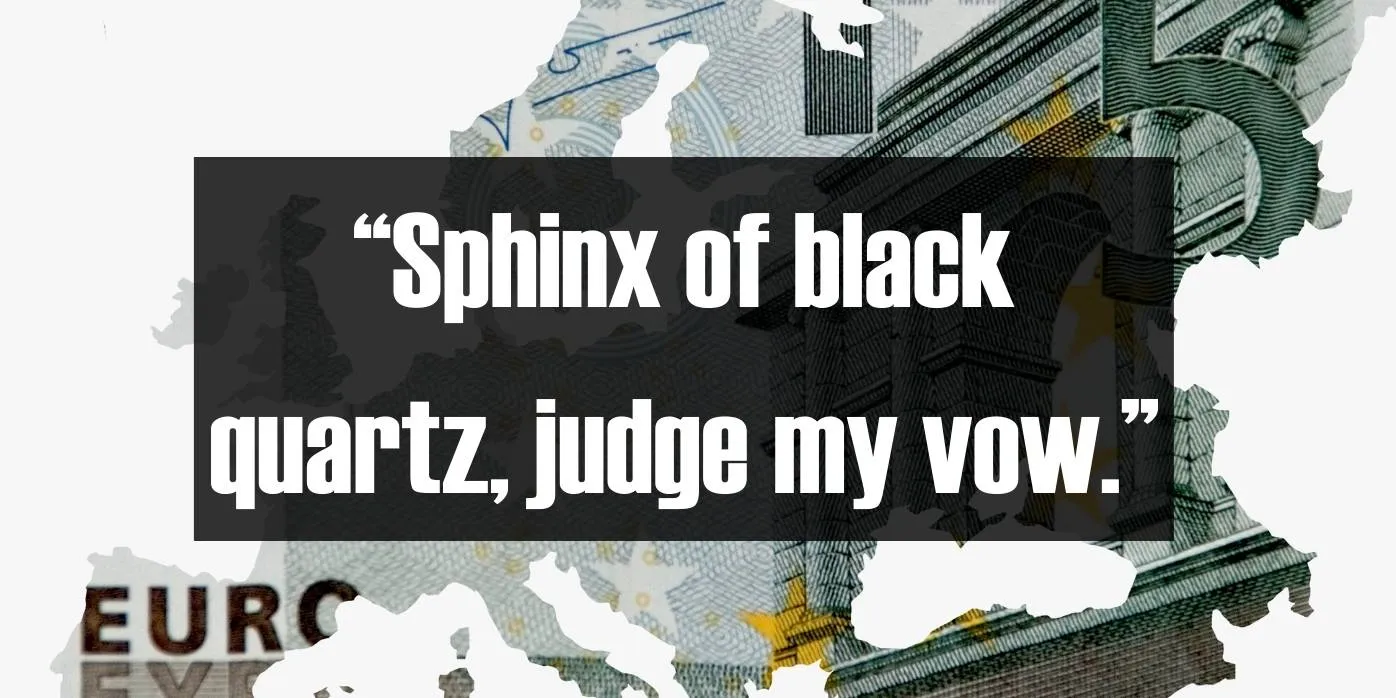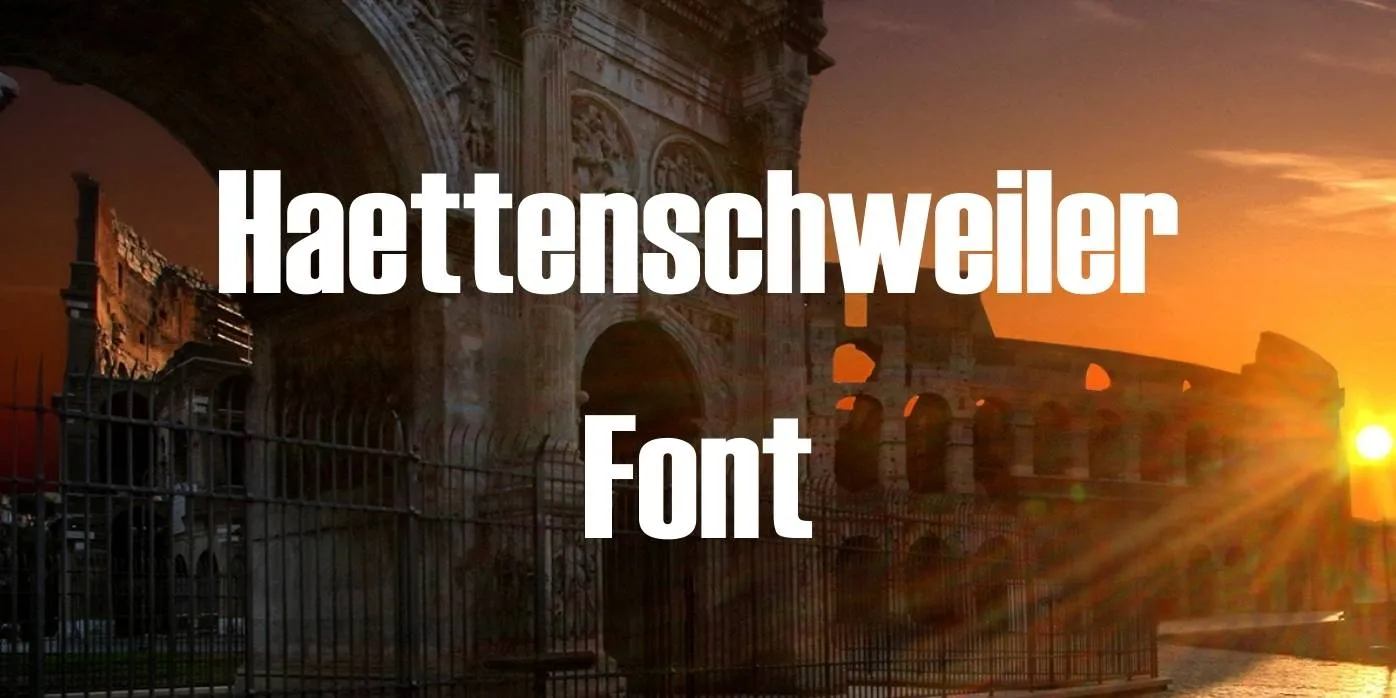
Haettenschweiler Font
Haettenschweiler Font Was developed by Walter Haettenschweiler. This stunning font belongs to the Sans-Serif typeface. It has a very modern and clean look. This cute font can be used in both print and digital projects.
It is perfect for headlines, logos, and posters. This smooth-looking font is best for Adobe. However, it should not be used for body text because it can be difficult to read. This fascinating font was released in 1984.
It is available in both regular and bold weights. If you are looking for a modern and stylish font, then this cozy font is definitely worth checking out! You can use this typeface by making pairing with RBNO3.1 Font. This typeface will provide the best copy and paste facility.